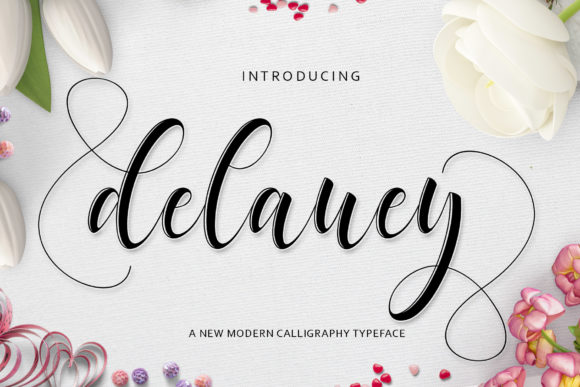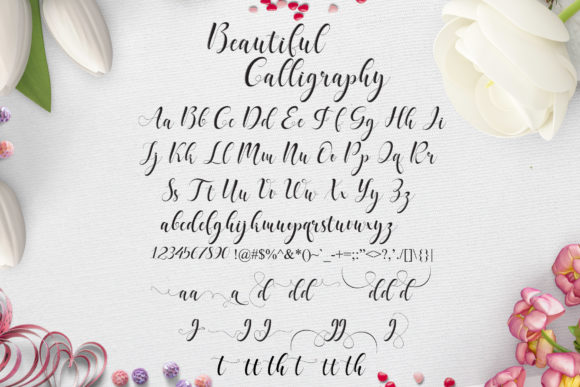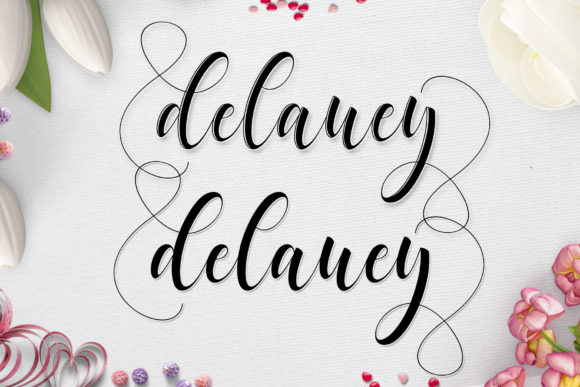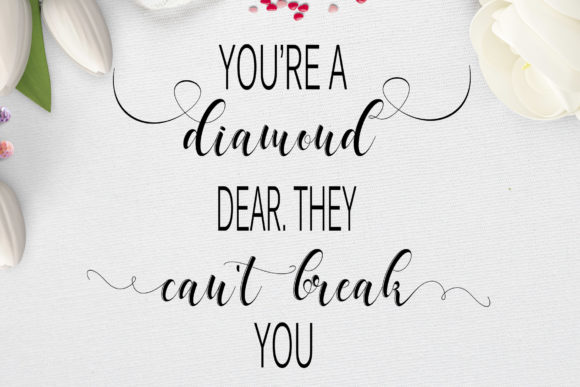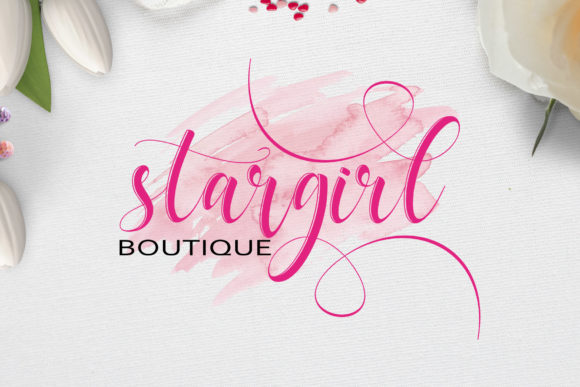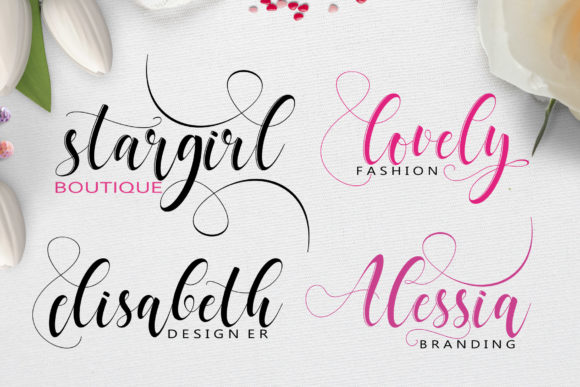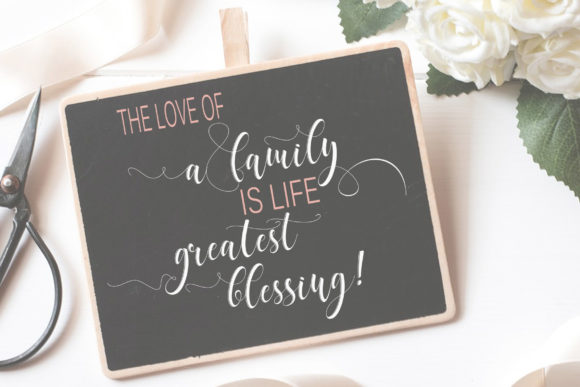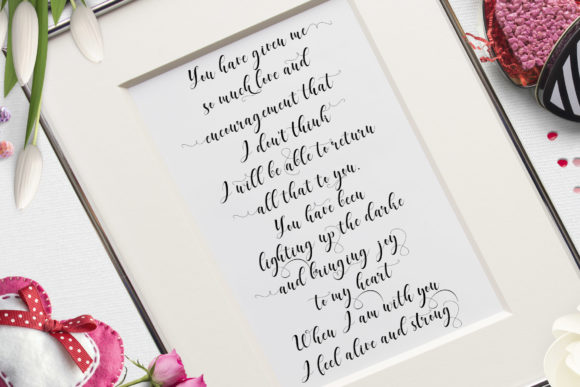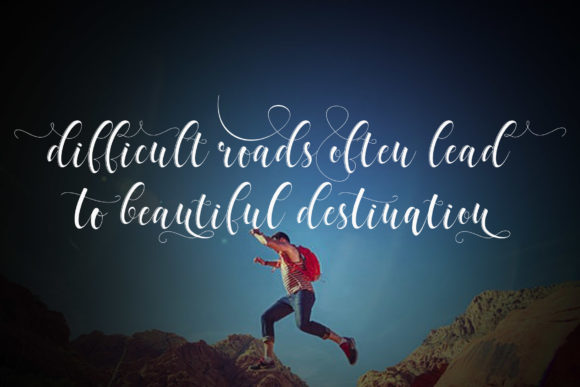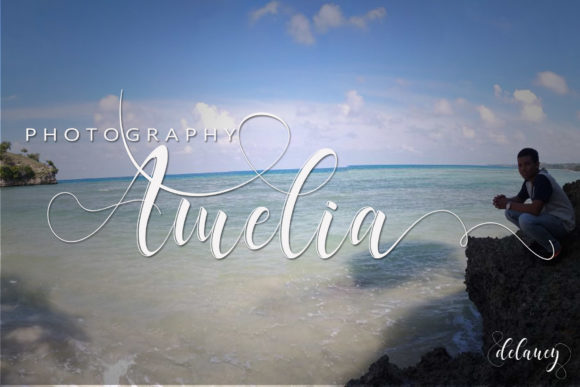
Delaney Font
About Delaney Font
The Delaney is a modern script font. Every single letters has been carefully crafted to make your text look beautiful.
Its modern style is perfect for invitations, greeting cards, posters, name cards, quotes, blog headers, branding, logos, fashion designs, apparel, letter, stationery and more!